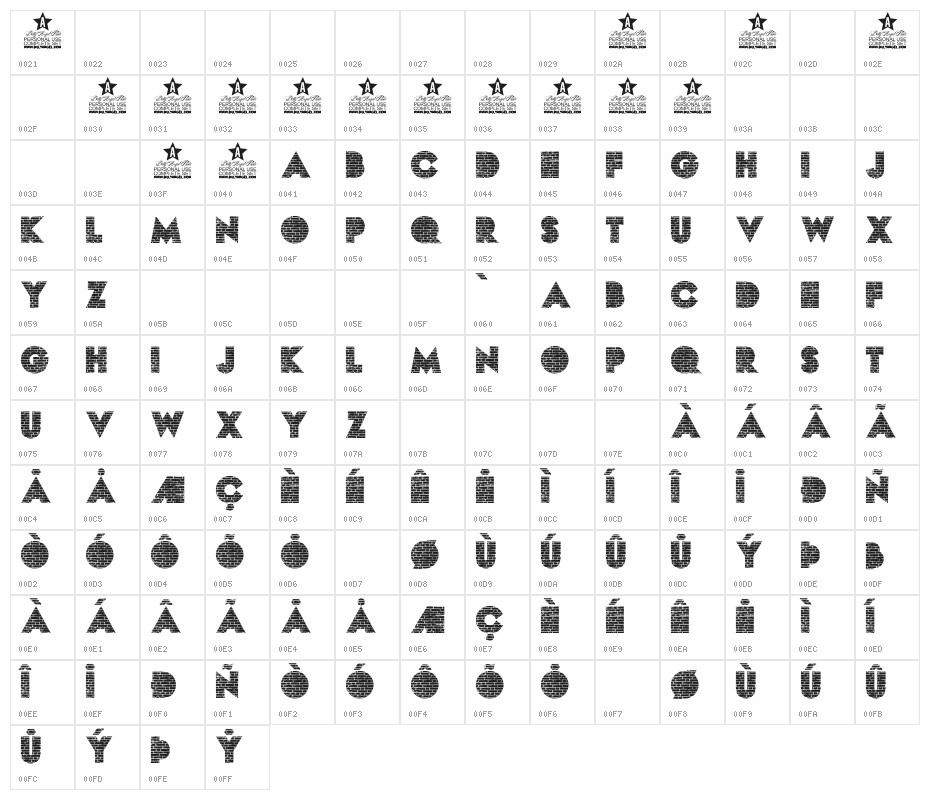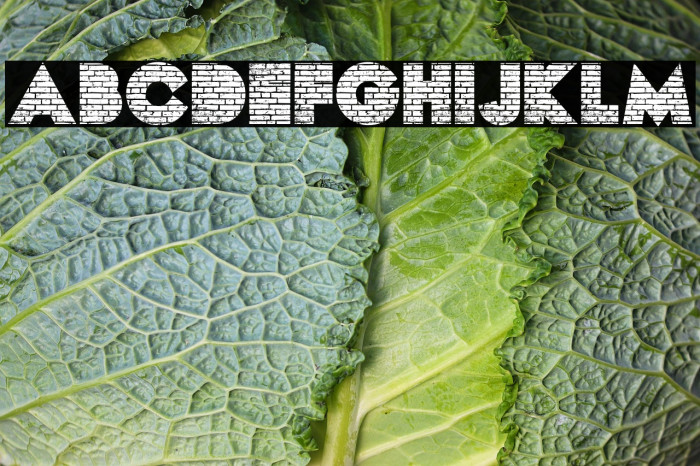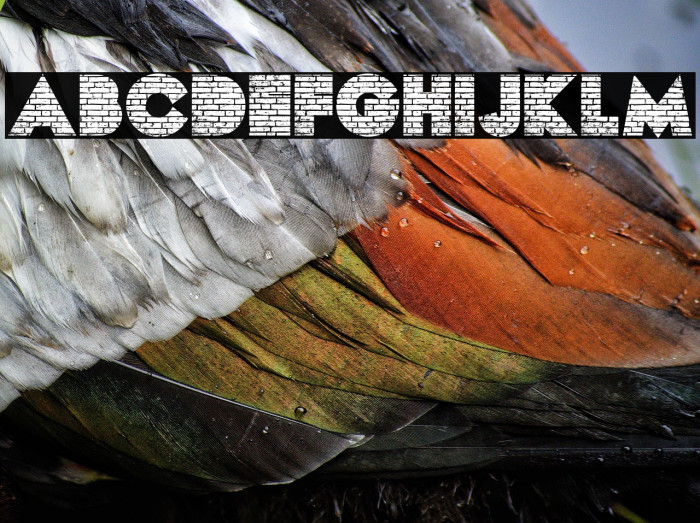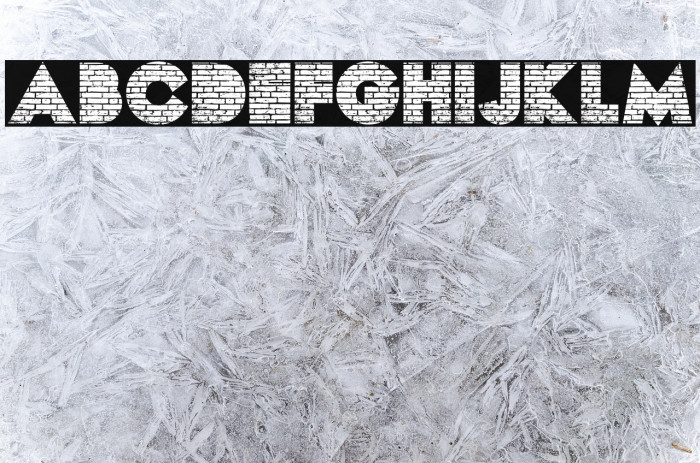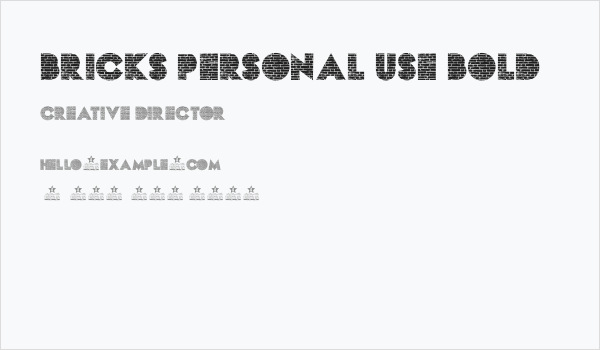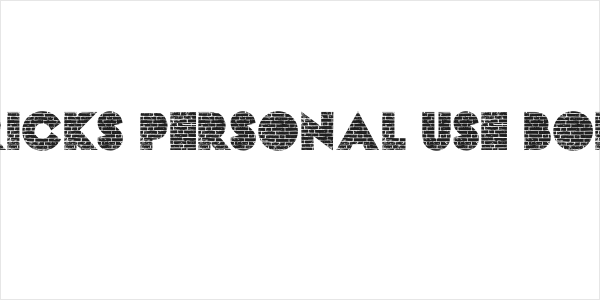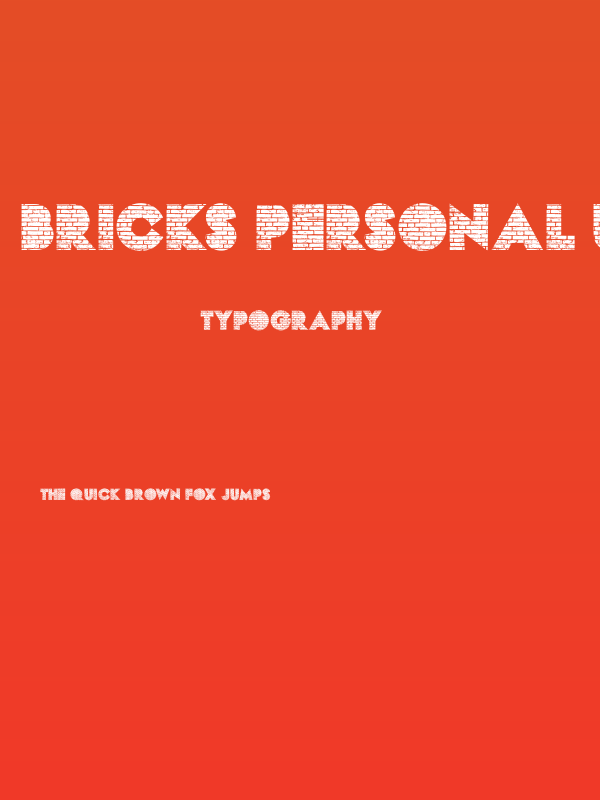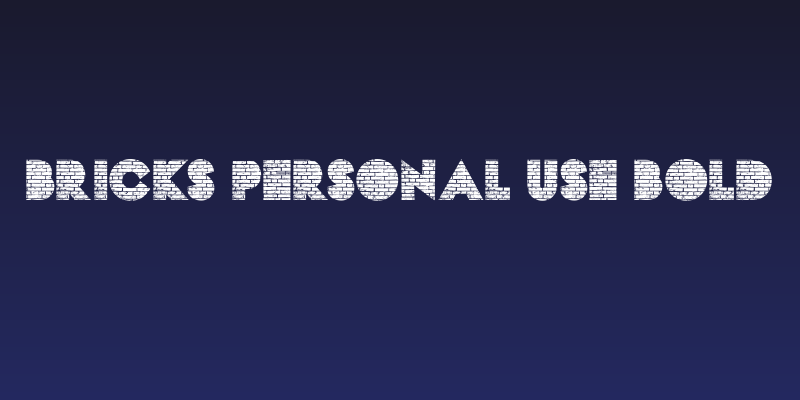
BRICKS PERSONAL USE Bold Font
BRICKS PERSONAL USE Bold Description
This font features a bold, decorative style with a unique brick pattern filling each letter. The uppercase letters are designed with a solid, geometric structure, giving them a strong and impactful appearance. The brick pattern adds a textured, urban feel, making it stand out as a display font. The characters are evenly spaced, ensuring readability despite the intricate design. This font is ideal for projects that require a bold statement or an industrial aesthetic.
Proposed ProjectsIdeal for posters, logos, headlines, and any design needing a strong, urban aesthetic.